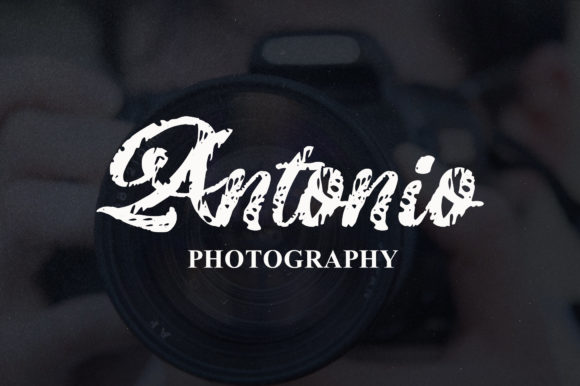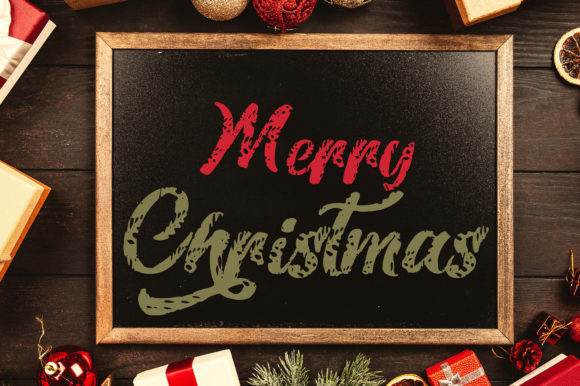
Black out Font
db-ku.com - Script & Handwritten -- Black Out is a lovely and rough textured script font that exudes elegance and class. This font was particularly crafted for those who need a beautiful and refreshing look to their designs.